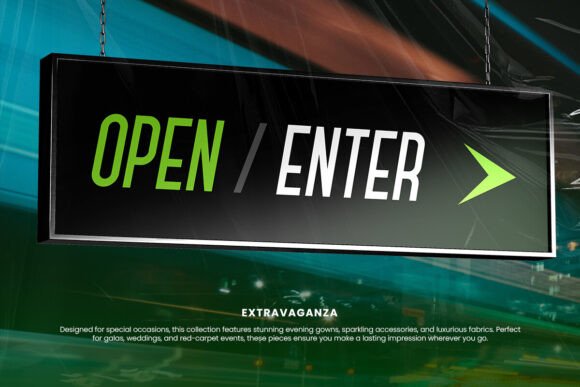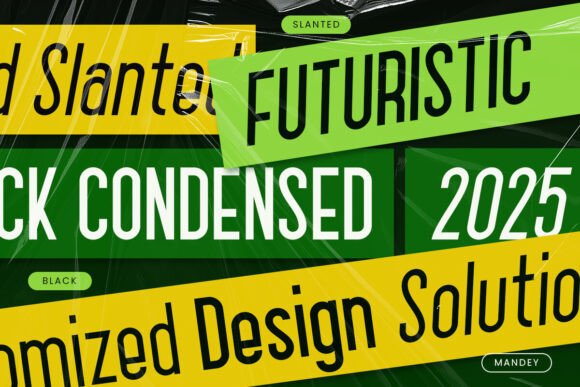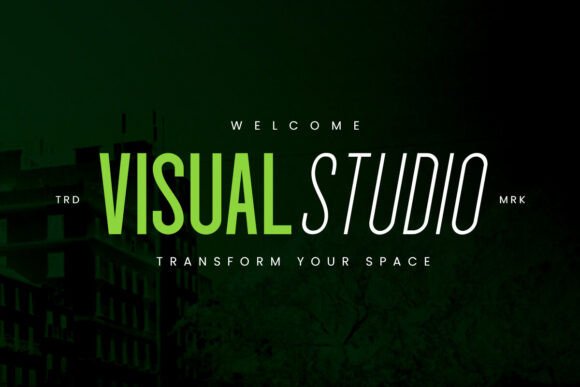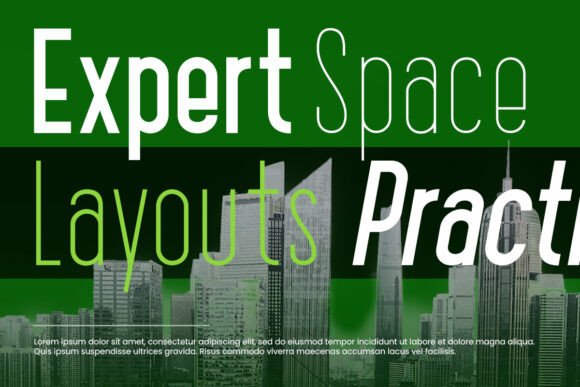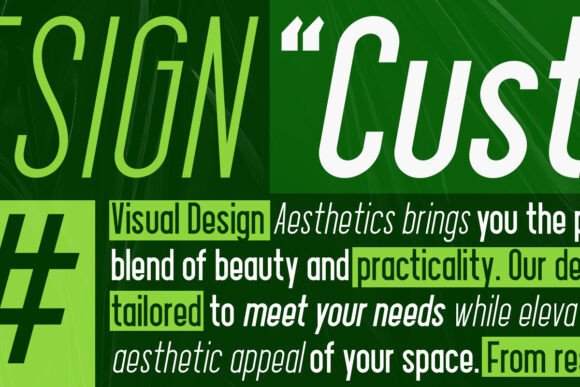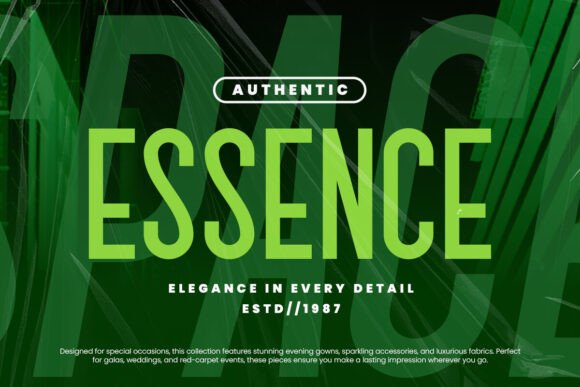
Introduction to Mandey Font
Have you ever stared at a blank design canvas, trying to bring your creative vision to life, but struggling to find the perfect font to capture the essence of your project? You’re not alone. As designers, we’ve all been there, searching for that elusive combination of style, elegance, and versatility that elevates our work from good to great. That’s where the Mandey Font comes in – a game-changing design resource that’s poised to revolutionize the way you approach typography.
With its sleek, condensed Sans Serif characters and extensive range of weights, Mandey Font is the ultimate tool for designers looking to add a touch of high-quality sophistication to their creative projects. Whether you’re working on a print or online campaign, a brand identity, or a web interface, Mandey Font’s clean lines, optimal spacing, and contemporary persona make it the perfect choice for any design need.
Key Features of Mandey Font
- High-quality font design with a transparent background, making it ideal for creative projects that require a clean and minimalist aesthetic.
- Includes a comprehensive character set, including uppercase and lowercase letters, numbers, and punctuation marks, making it suitable for a variety of creative projects.
- Designed with a high resolution (300 DPI) to ensure crisp and clear typography, even when scaled up or used in large formats.
- Unique and modern design style, making it an excellent choice for designers who want to add a touch of sophistication and elegance to their creative project.
Honest Review: Mandey Font
As a designer, I’m always on the lookout for high quality design resources to enhance my creative projects. Recently, I stumbled upon the Mandey Font, and I must say it’s been a pleasant surprise. This free download has quickly become one of my go-to fonts for various design projects.
One of the things that stands out about the Mandey Font is its versatility. It’s perfect for creating eye-catching headings, and its transparent background makes it easy to overlay on images or other design elements. ✨ I’ve used it in several projects, and it always adds a touch of sophistication and elegance.
Here are some of the key features that make the Mandey Font so useful:
- Transparent background for easy overlaying
- Wide range of applications, from print to digital design
Of course, like any font, the Mandey Font has its limitations. ⚠️ It’s not as extensive as some other font families, and it may not be suitable for projects that require a lot of customizations. However, for most design projects, it’s more than sufficient.
Overall, I’m impressed with the Mandey Font. It’s a solid addition to any designer’s toolkit, and I highly recommend it for any creative project. Whether you’re working on a logo, brochure, or website, the Mandey Font is definitely worth considering.
Mandey Font
The Mandey Font is a high-quality design resource that can be downloaded for free. It’s perfect for any creative project that requires a unique and modern touch. With a transparent background, this font is versatile and easy to use in various design applications.
Tips for Getting the Most Out of Mandey Font
To get the most out of Mandey Font, experiment with different font sizes, colors, and styles to create unique and eye-catching designs. You can also combine Mandey Font with other design elements, such as graphics and images, to create a cohesive and professional-looking design.
The Mandey Font is perfect for any creative project, including graphic design, digital art, and web design. It’s also great for creating social media posts, presentations, and documents that require a modern and professional touch.